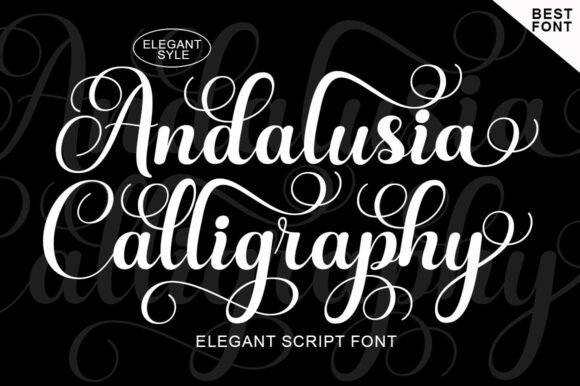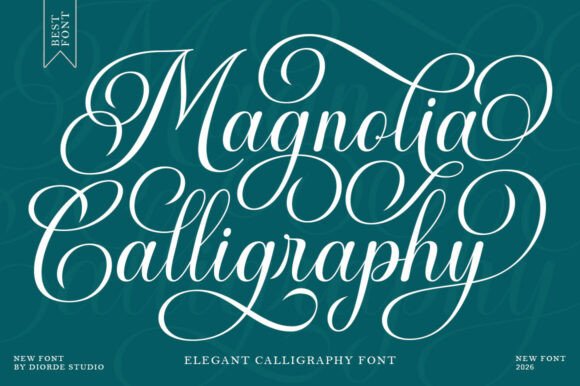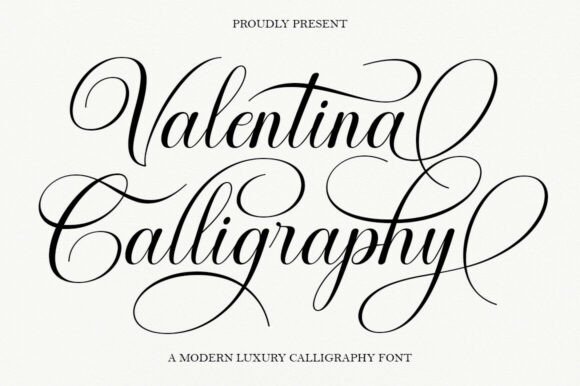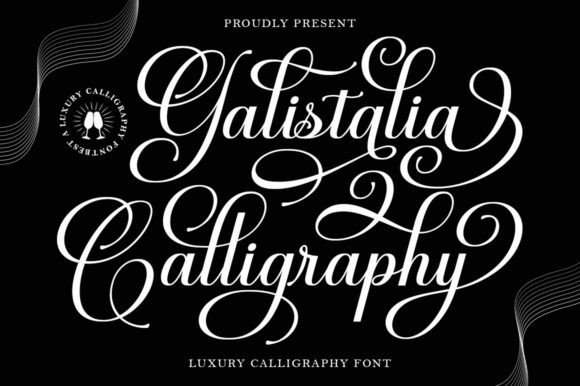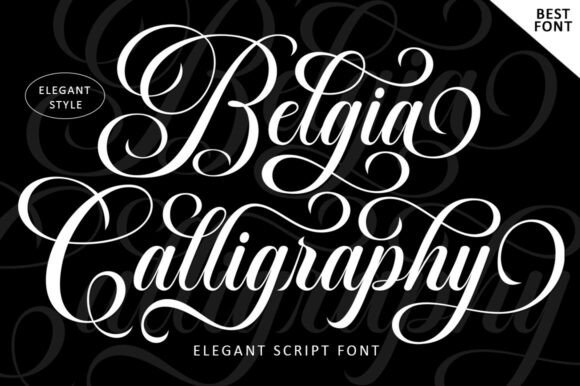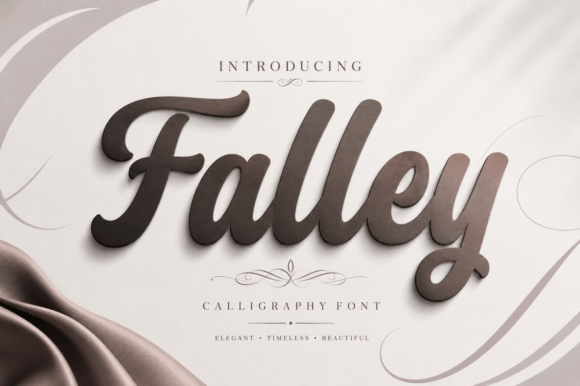
16 Flowing Calligraphy Fonts for Wedding Invitations (2026)
Calligraphy fonts for wedding invitations turn a couple’s names into the centrepiece of the whole suite. Real hand-lettering carries a formality and romance that ordinary scripts cannot, which is why it is the classic choice for weddings. The best calligraphy fonts for wedding invitations balance flourish with legibility so the names look beautiful and still read clearly.
This guide sorts 16 fonts by style, classic calligraphy, modern calligraphy, copperplate and formal hands, and bold cursive, so you can match the lettering to your day.
How to use calligraphy fonts for wedding invitations
Calligraphy is gorgeous in small doses. A few rules keep calligraphy fonts for wedding invitations elegant and readable.
- Names only: save the calligraphy for the couple, set details in a calm face.
- Use the alternates: swashes and ligatures are where calligraphy comes alive.
- Avoid all caps: calligraphy is built for upper and lower case, not capitals.
- Proof on card: fine strokes can thin out on cotton or textured stock.
Classic calligraphy fonts for wedding invitations
Start here. These classic calligraphy fonts for wedding invitations bring timeless, romantic hand-lettering to the names.
Andalusia Calligraphy
Andalusian Calligraphy is an elegant script with beautiful character variations. Among classic calligraphy fonts for wedding invitations it offers a warm, traditional hand for the names, with alternates to vary repeated letters. Keep it to the names and a short line, paired with a calm serif. The flowing forms read romantic at size. For a classic wedding that wants timeless calligraphy, Andalusia is a lovely font worth a look.
Magnolia Calligraphy
Magnolia Calligraphy blends the charm of classic lettering with elegance. Among calligraphy fonts for wedding invitations it gives the names a soft, floral-leaning grace, perfect for a garden or spring wedding. Keep it to the names and a short accent, with a calm serif for details. The flowing forms read tender at size. For a romantic, botanical wedding, Magnolia Calligraphy is a graceful font worth trying.
Valentina Calligraphy
Valentina Calligraphy joins classic charm with a refined hand. Among classic calligraphy fonts for wedding invitations it makes an elegant, romantic name script with a timeless feel. Keep it to the names and a short line, paired with a calm serif. The graceful forms read warm at size. For a classic wedding that wants a romantic calligraphy hand, Valentina is a lovely font worth a look.
Galistalia Calligraphy
Galistalia Calligraphy blends classic elegance with a flowing hand. Among calligraphy fonts for wedding invitations it gives the names a graceful, traditional script with smooth joins. Keep it to the names and a short accent, with a calm serif for details. The flowing forms read romantic at a generous size. For a wedding that wants classic, smooth calligraphy, Galistalia is a graceful font worth trying.
Belgia Calligraphy
Belgia Calligraphy is an elegant script with beautiful character variations. Among classic calligraphy fonts for wedding invitations it offers a refined, traditional hand with plenty of alternates to fine-tune the names. Keep it to the names and a short line, paired with a calm serif. The graceful forms read romantic at size. For a classic wedding that wants adaptable calligraphy, Belgia is a lovely font worth a look.
Barsela Calligraphy
Barsela Calligraphy is an elegantly styled script with classic charm. Among calligraphy fonts for wedding invitations it gives the names a polished, traditional hand that reads romantic and refined. Keep it to the names and a short accent, with a calm serif for details. The flowing forms want room to breathe. For a wedding that wants a refined, classic calligraphy hand, Barsela is a graceful font worth trying.
Belastia Calligraphy
Belastia Calligraphy blends classic charm with elegant flow. Among classic calligraphy fonts for wedding invitations it makes a warm, romantic name script with a traditional feel. Keep it to the names and a short line, paired with a calm serif. The graceful forms read tender at a generous size. For a classic wedding that wants timeless calligraphy, Belastia is a lovely font worth a look.
Modern calligraphy fonts for the names
For a fresh, contemporary feel, these modern calligraphy fonts for wedding invitations keep the flourish but read current.
Falley
Falley is a contemporary calligraphy script with elegance and a current feel. Among modern calligraphy fonts for wedding invitations it keeps the flourish but reads fresh, good for a modern couple. Keep it to the names and a short accent, with a clean serif for details. The flowing forms read graceful at size. For a modern wedding that wants up-to-date calligraphy, Falley is a lovely font worth trying.